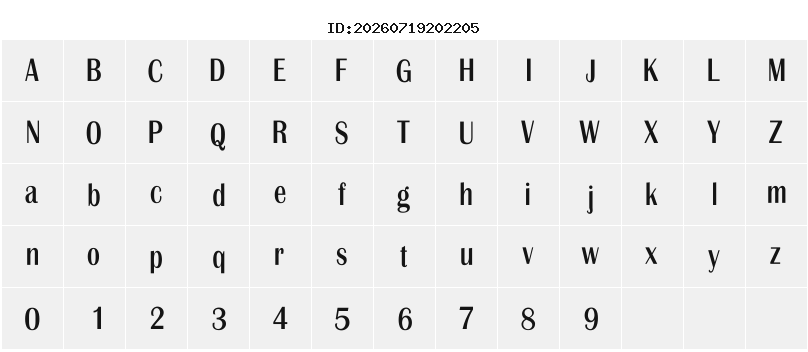
• Font Name: Esoterik
• Designer: Kenneth Hirst
• Manufacturer: Laser Printing Solutions
• Description: Esoterik is a font by Kenneth Hirst, Unicode set generated in 2014 from Astro, Alchemy and other ASCII based fonts.
About Esoterik.ttf
Esoterik.ttf is a modern, elegant sans-serif font designed for ultimate readability and visual harmony. Perfect for branding, headlines, web design, and print materials.